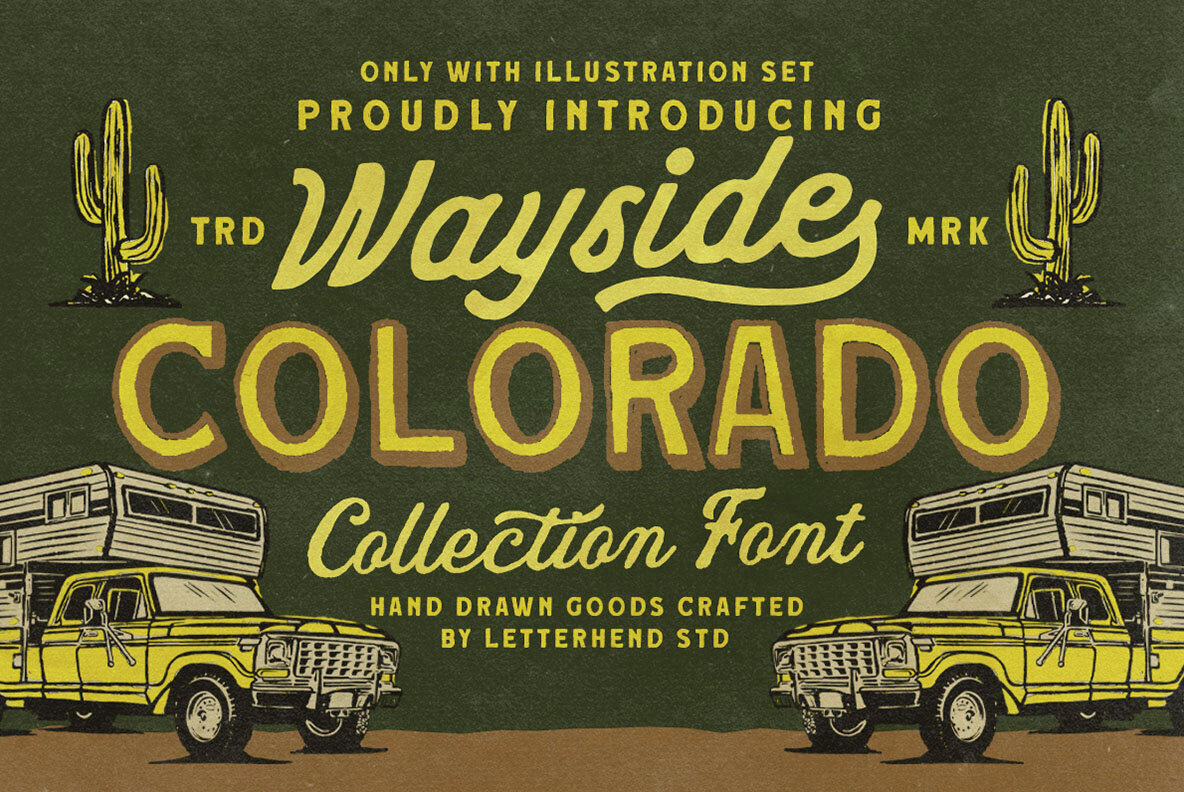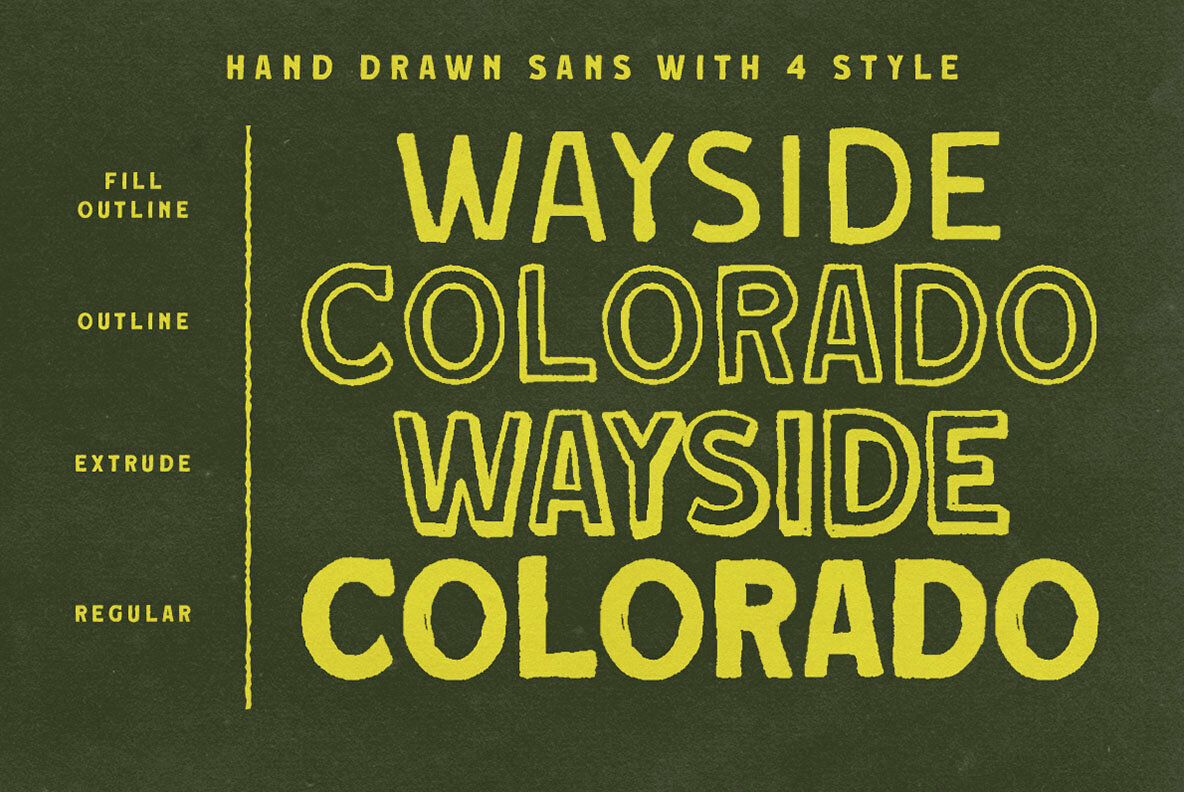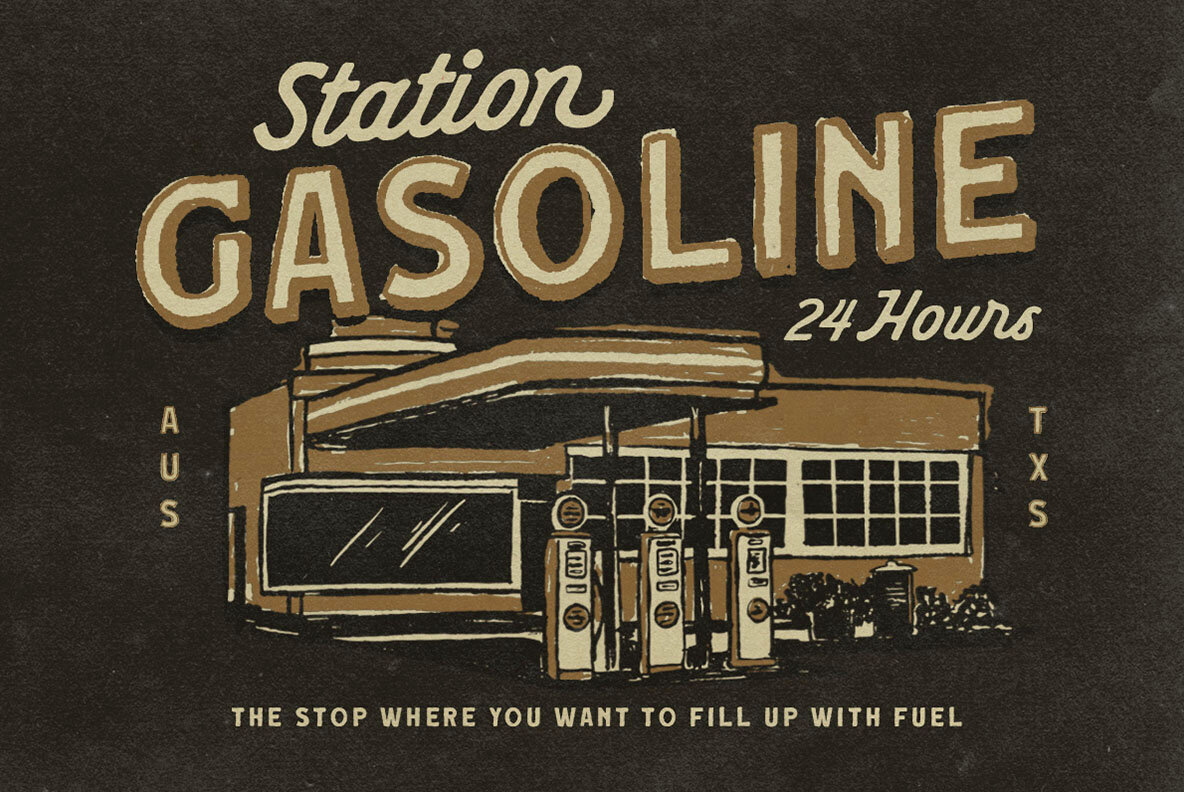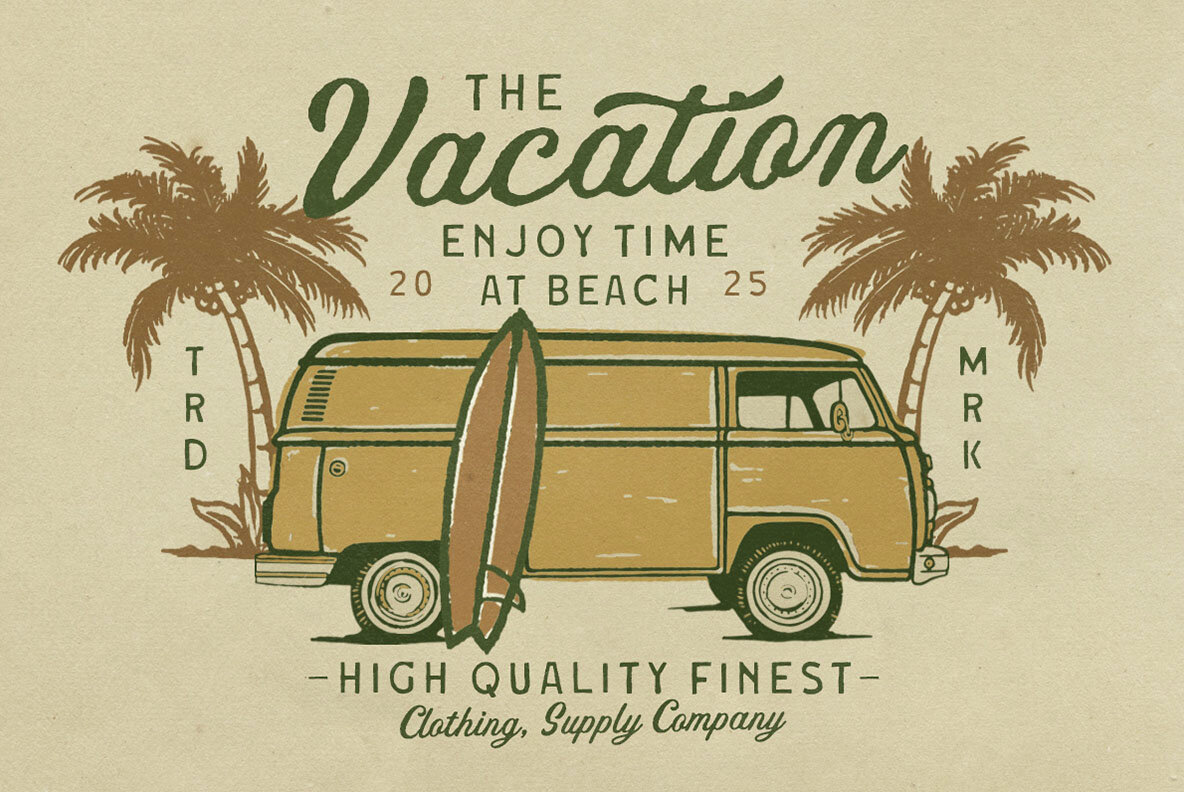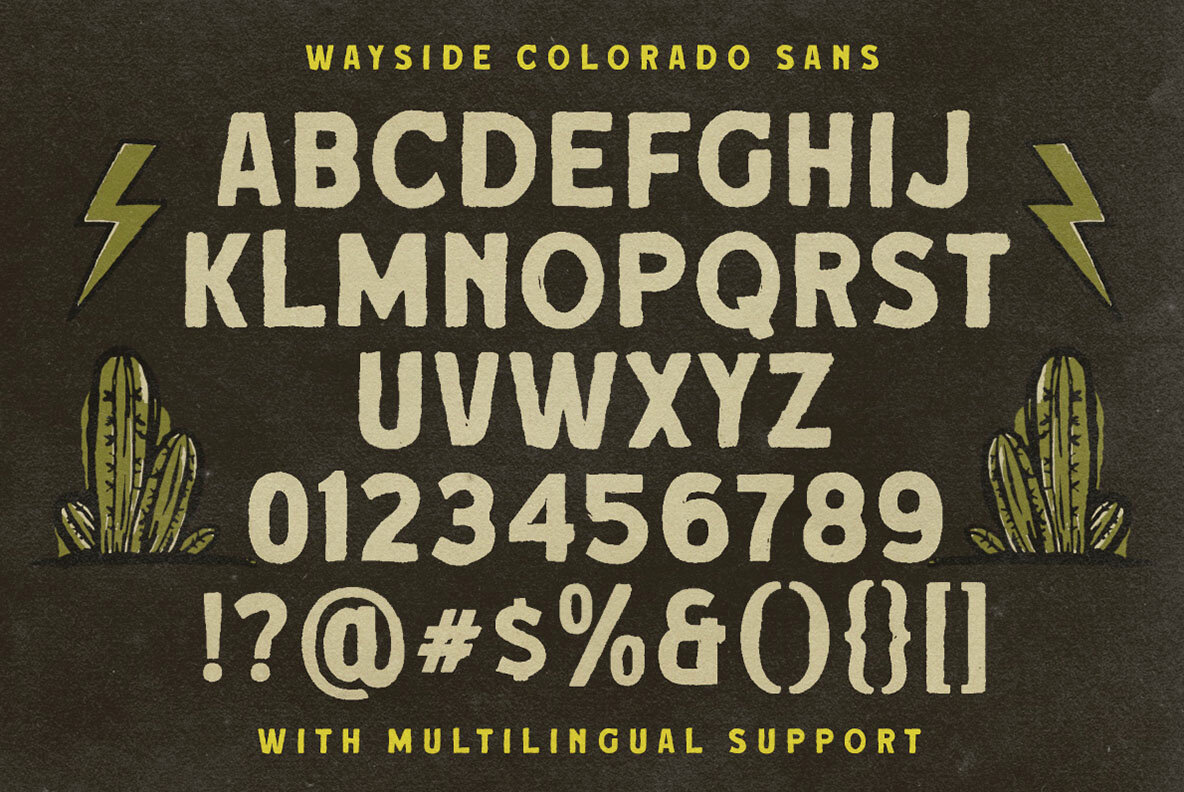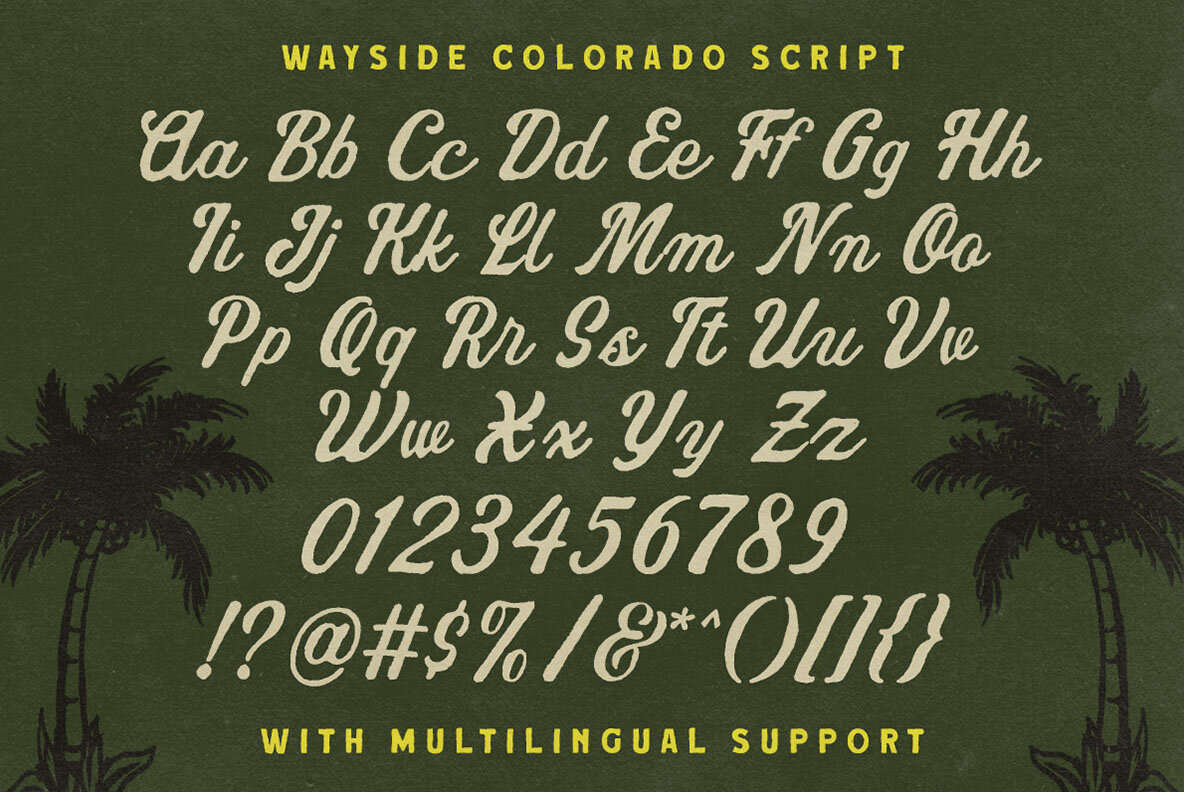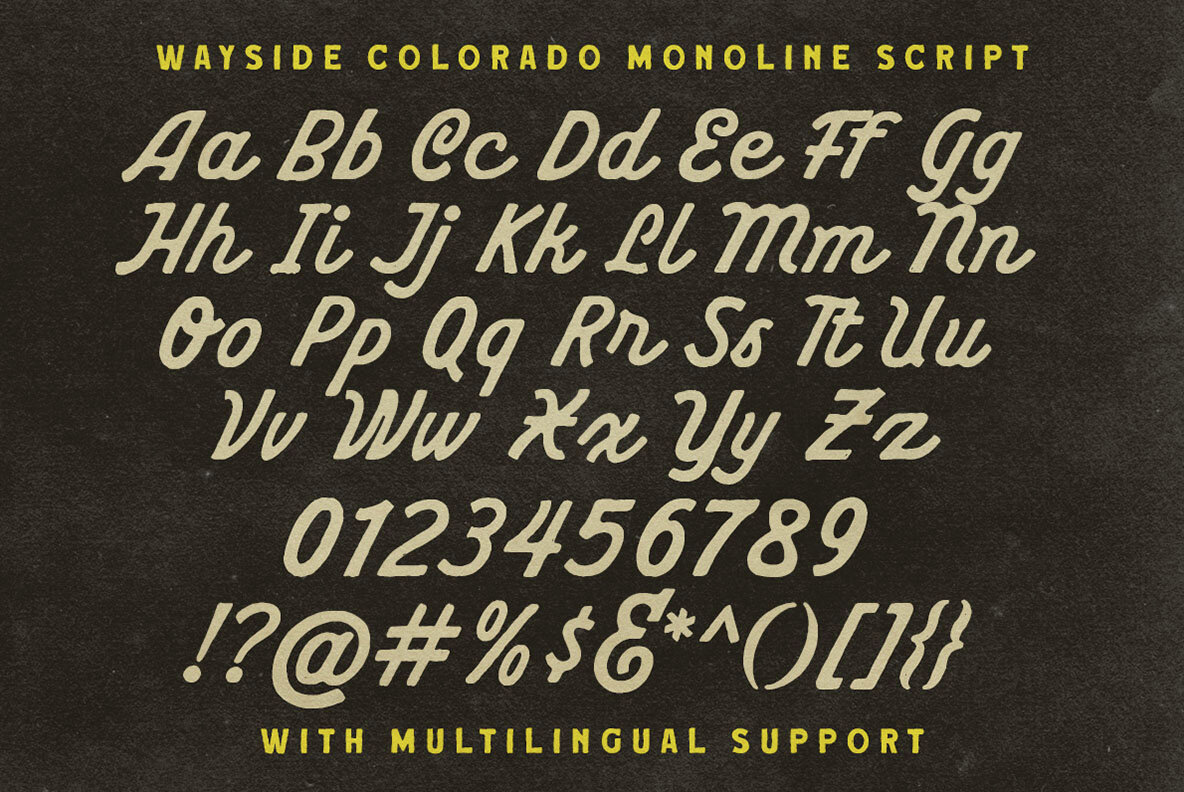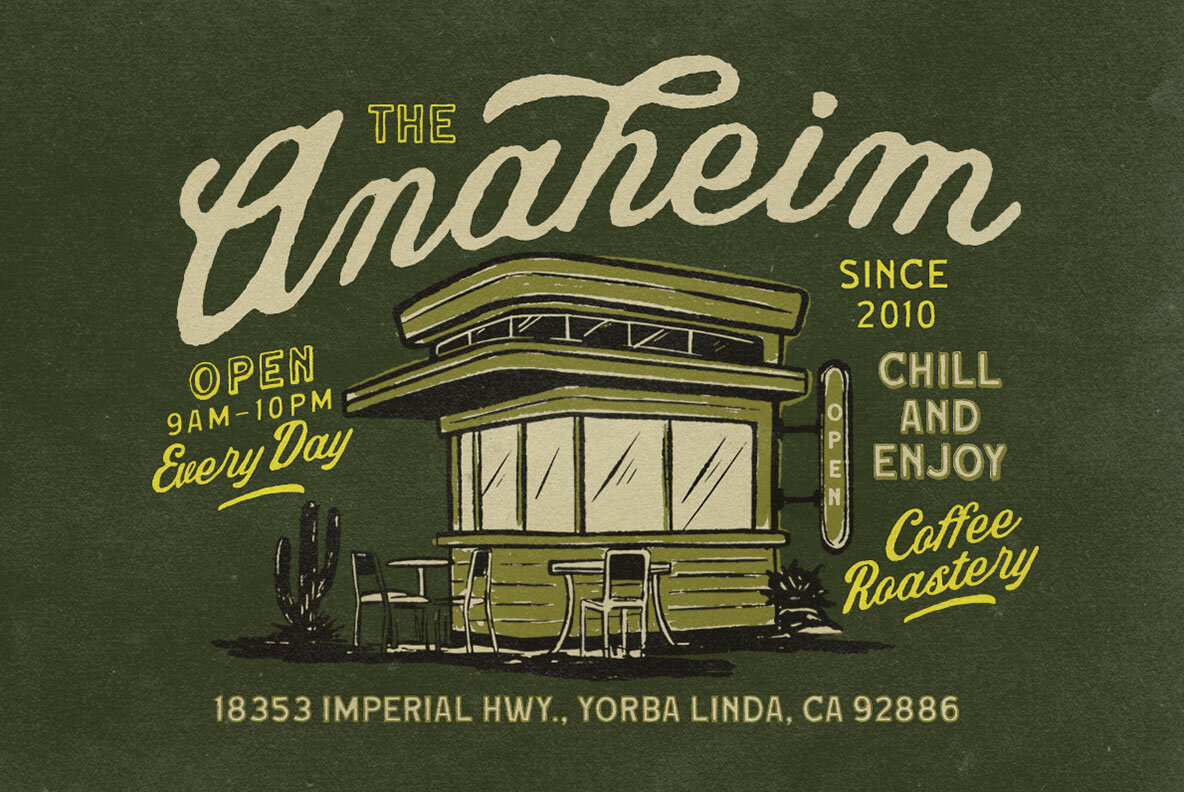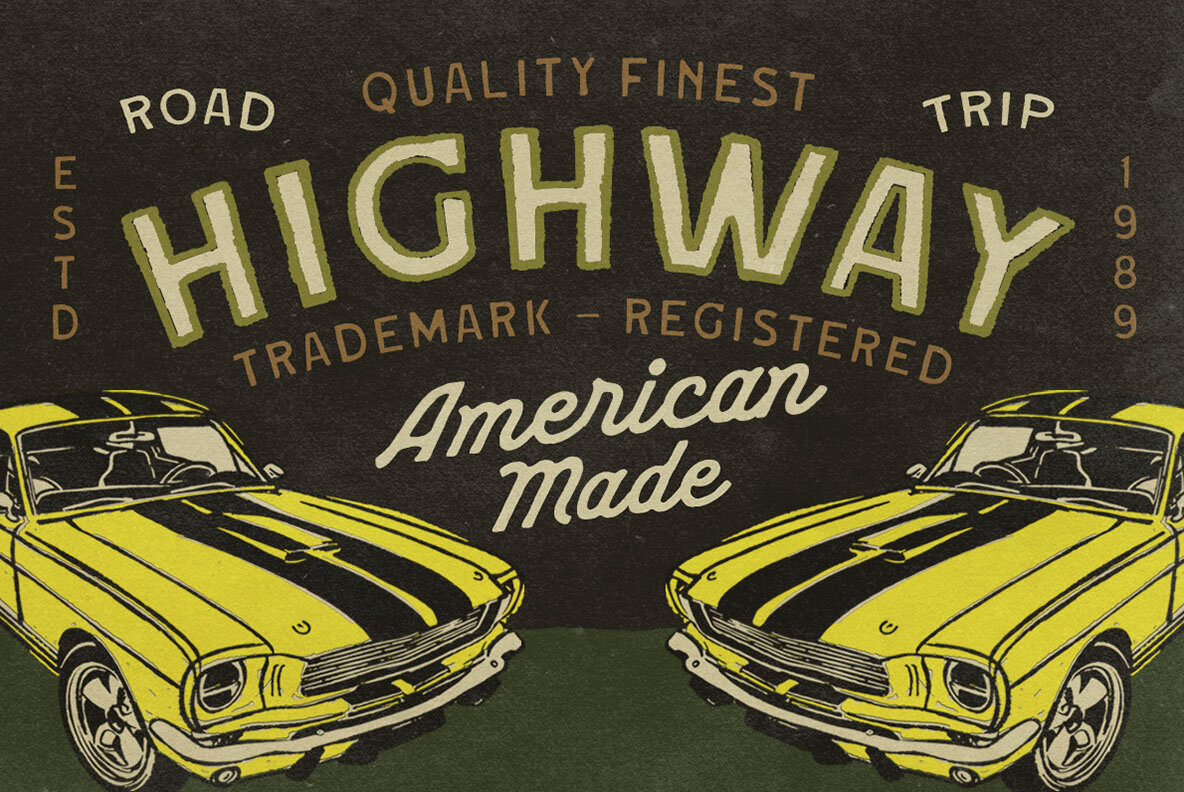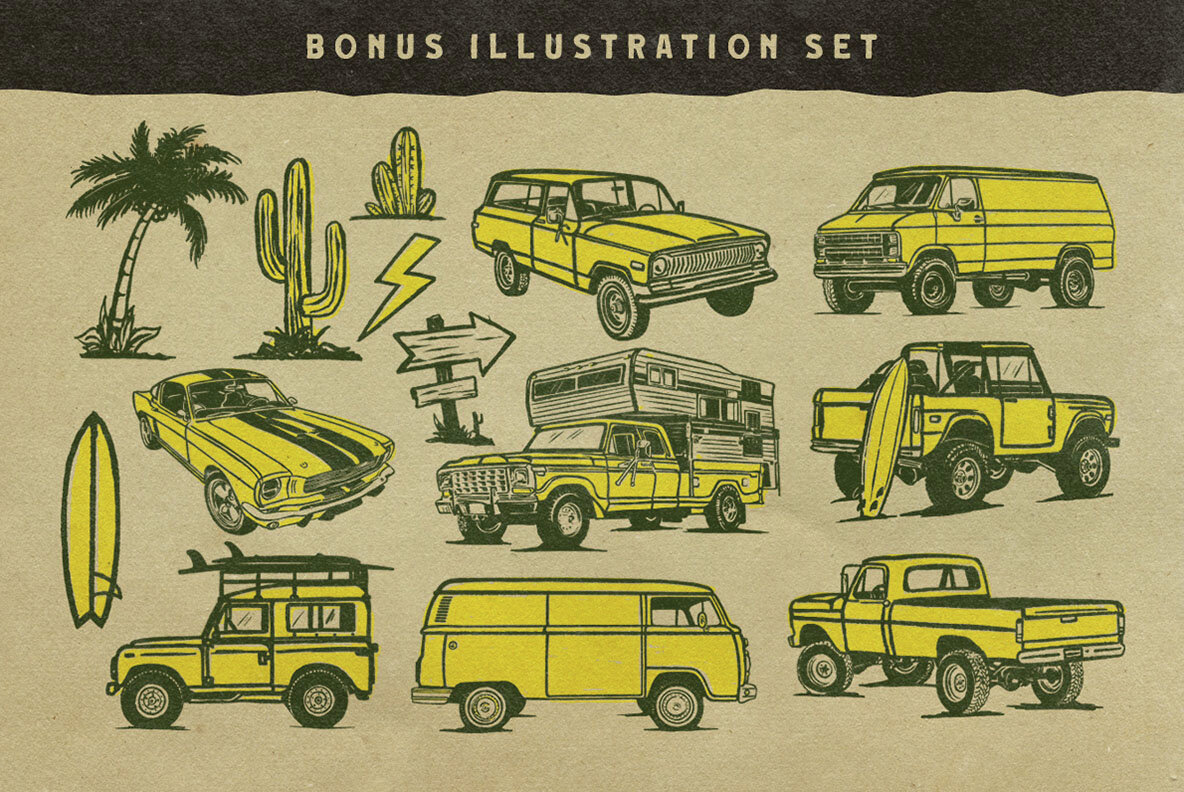
Wayside Colorado Font
Take a trip down memory lane with Wayside Colorado Collection Font—a beautifully handcrafted typeface inspired by retro road trips, sun-faded signage, and classic western vibes. The rough stroke add a touch of warmth and authenticity to logos, posters, apparel, and branding. Whether you’re designing for a vintage-style café, an adventure brand, or a Western-themed event, this font brings personality and charm that stands the test of time. Features: We highly recommend using a program that supports OpenType features and Glyphs panels like many of Adobe apps and Corel Draw, so you can see and access all Glyph variations.